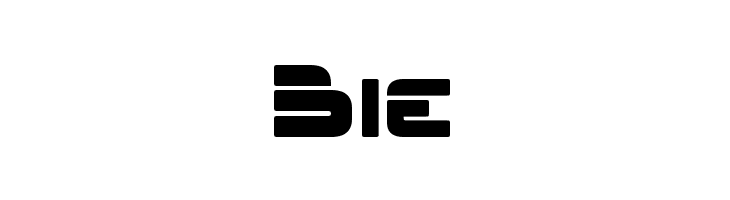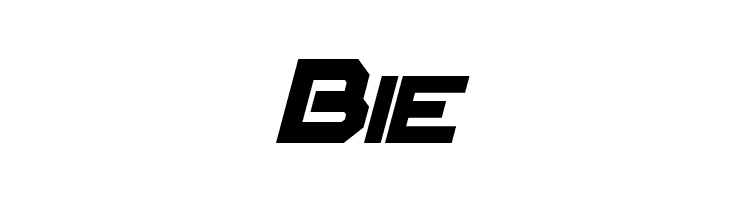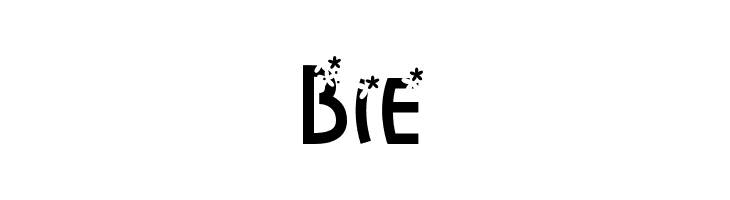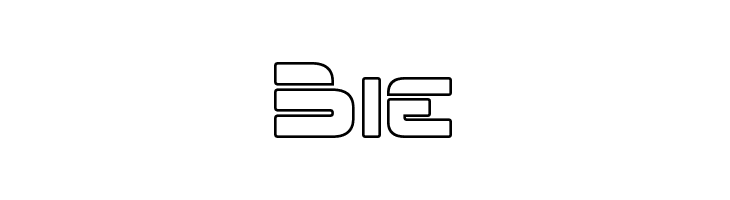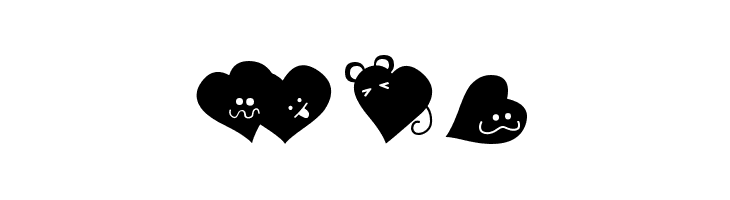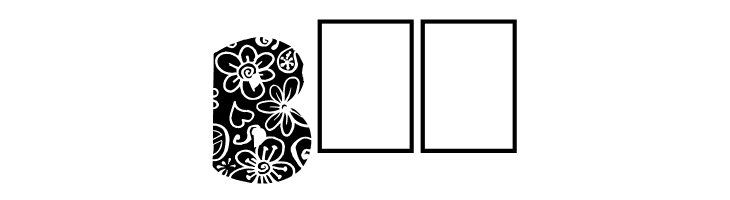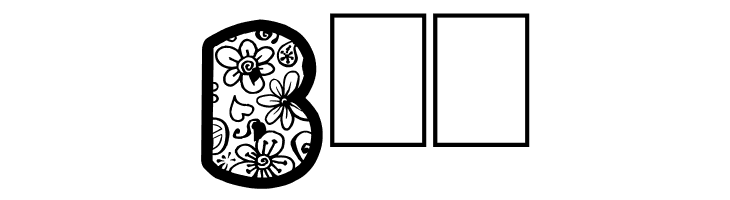
• Flipbash Italic
A bold, geometric italic font with sharp angles and a futuristic style.
• FlowerExplosion
A playful, decorative font with floral accents on bold, rounded characters.
• Flowers Power
A bold, decorative font with intricate floral patterns inside each character.
• Flowers Power Nega
A bold, decorative font with intricate floral patterns in each character.
• FloweryDeath
A dramatic, edgy font with sharp, jagged edges and a distressed, hand-drawn appearance.
• FluffyHeartsDing
A decorative dingbat font with playful heart designs and whimsical elements.
• Fly
( Cristina Palapa )
A modern, slanted font with bold, angular characters and a dynamic style.
• Flying Bird
• Flynn
A bold, futuristic font with geometric shapes and a tech-inspired design.
• Flynn Hollow
A futuristic, geometric font with hollow letterforms and bold outlines.